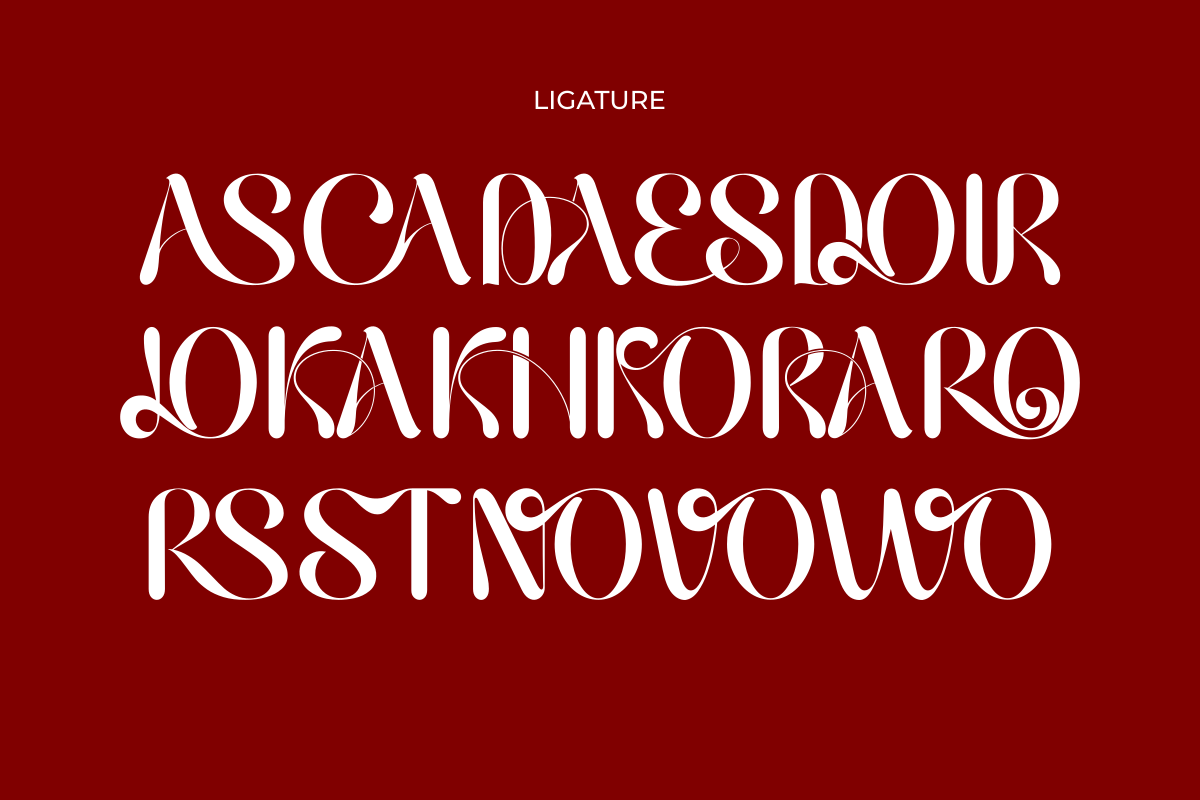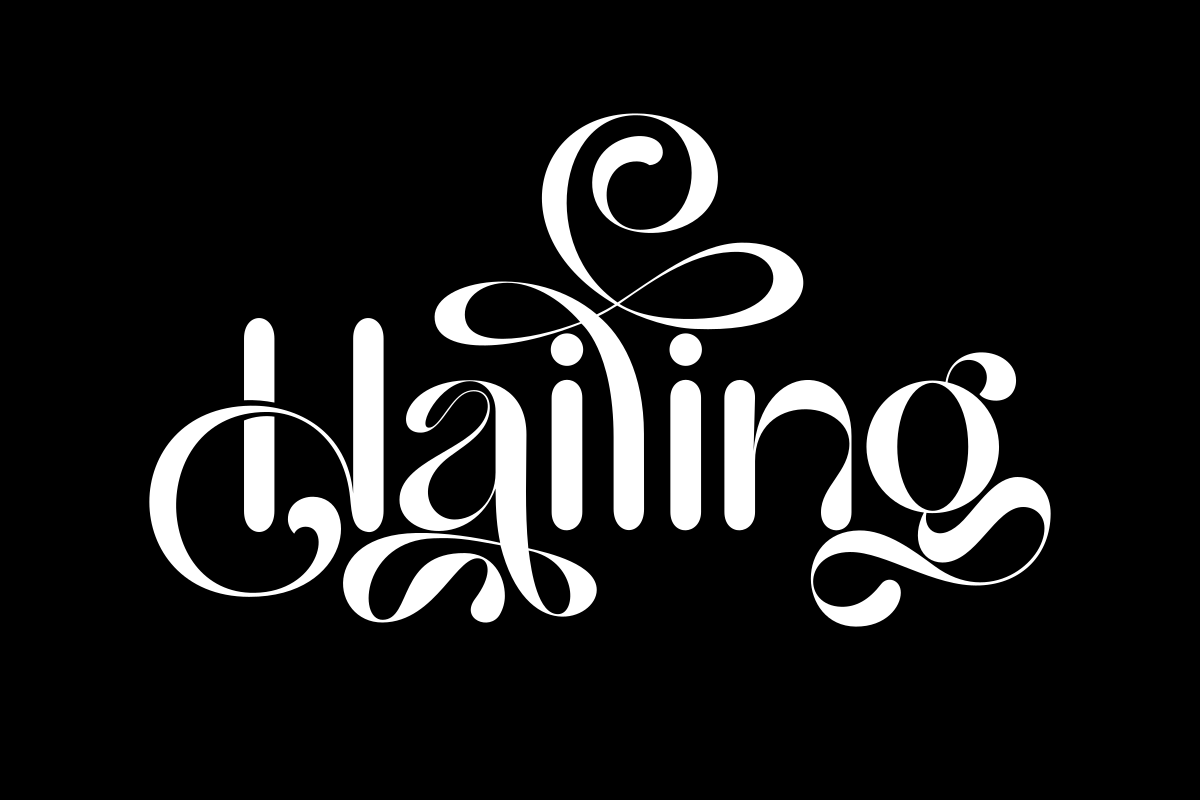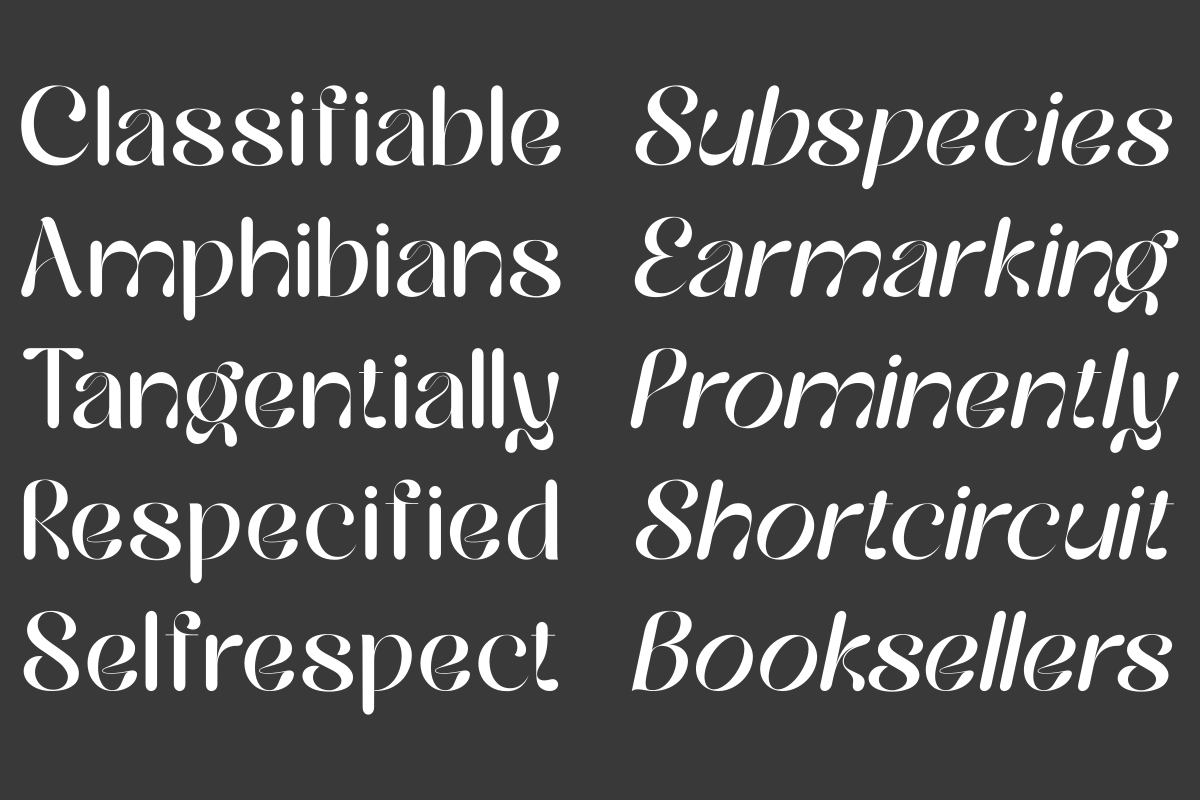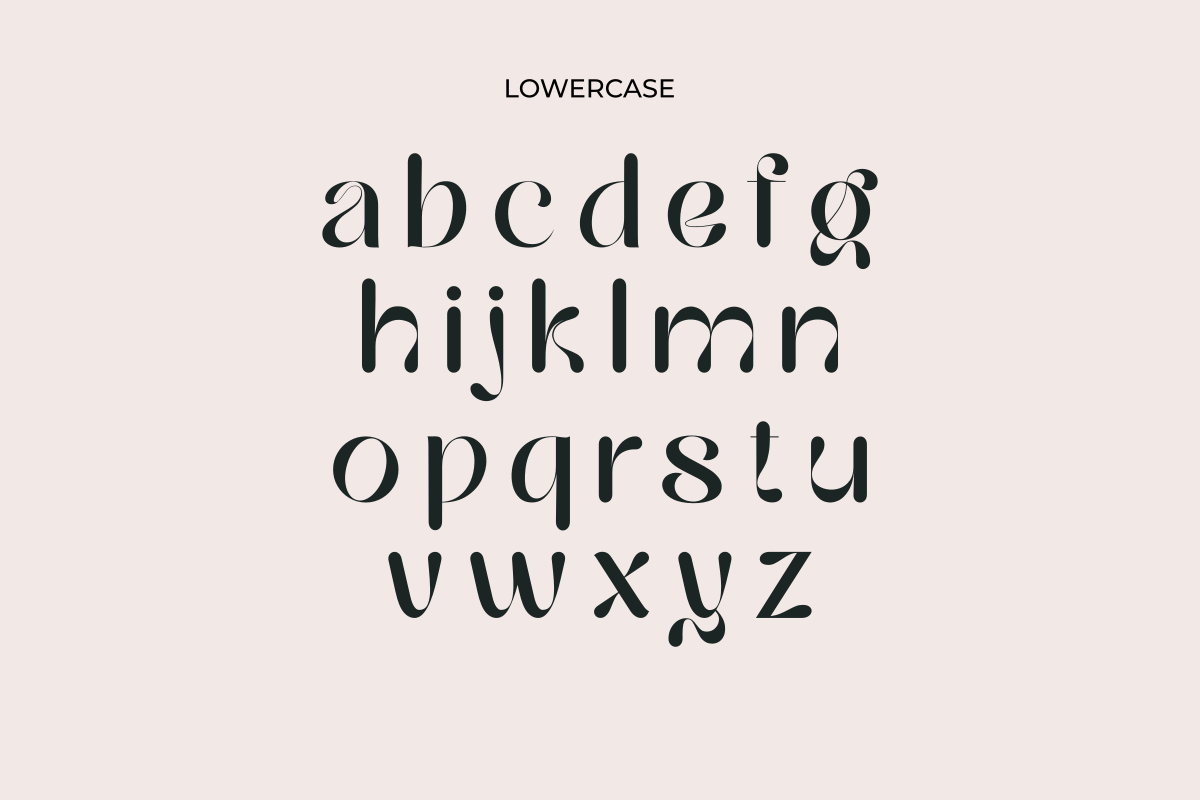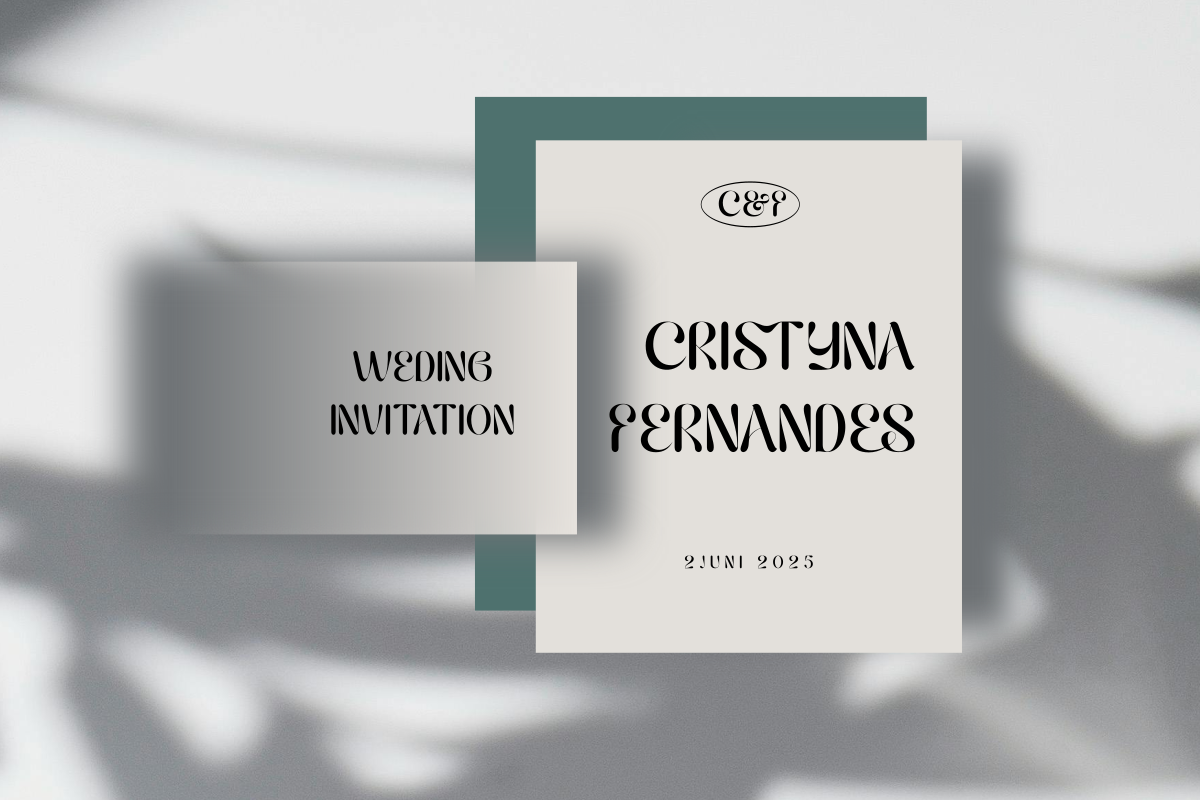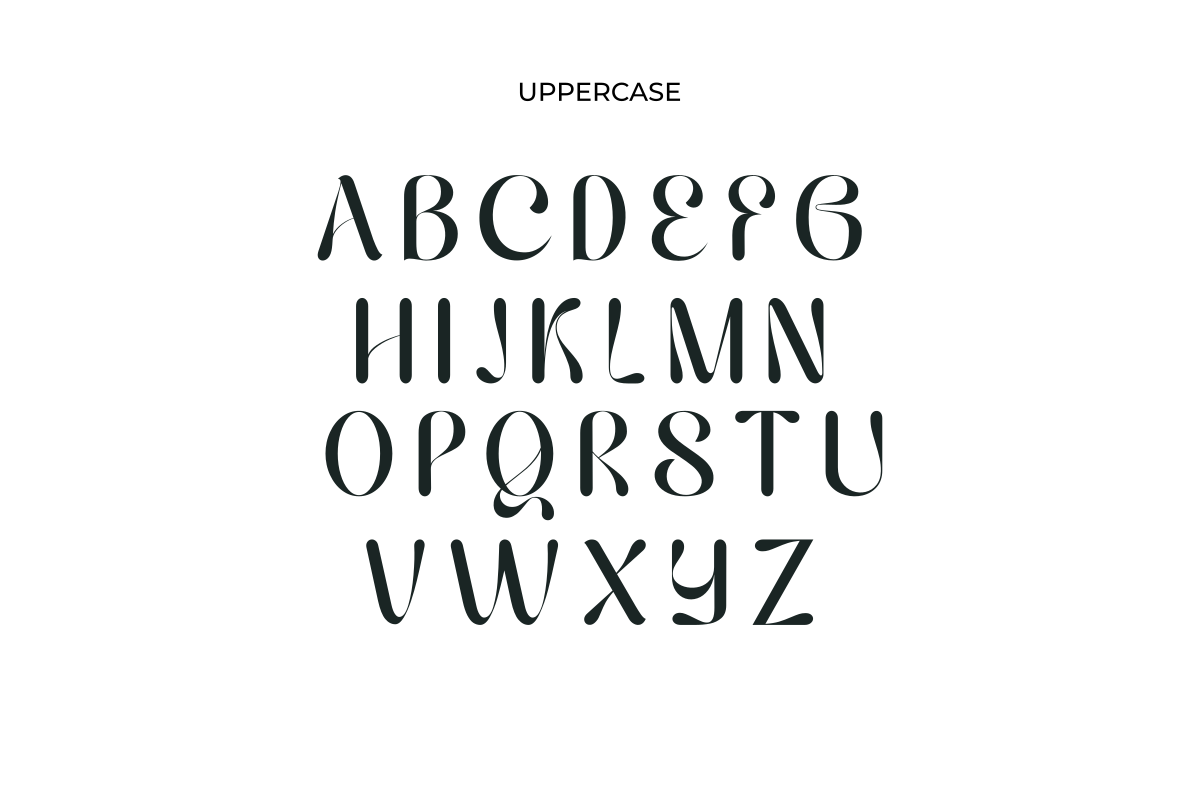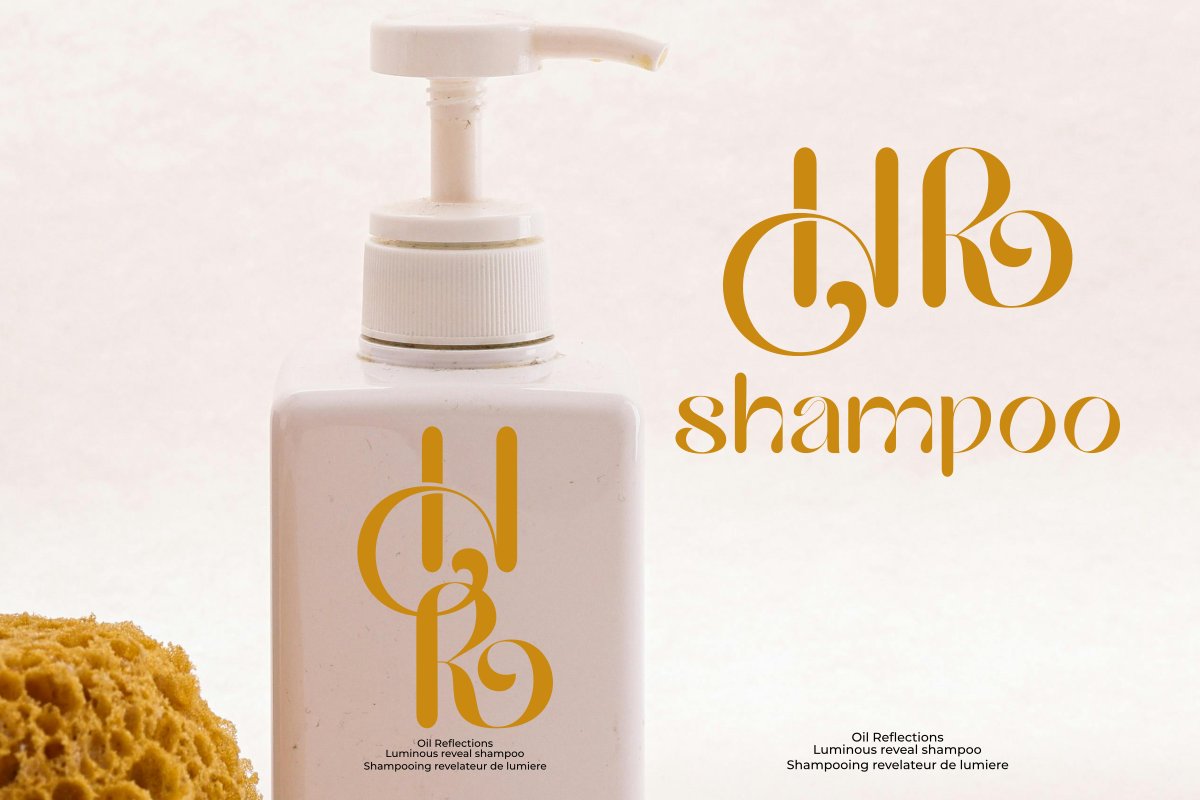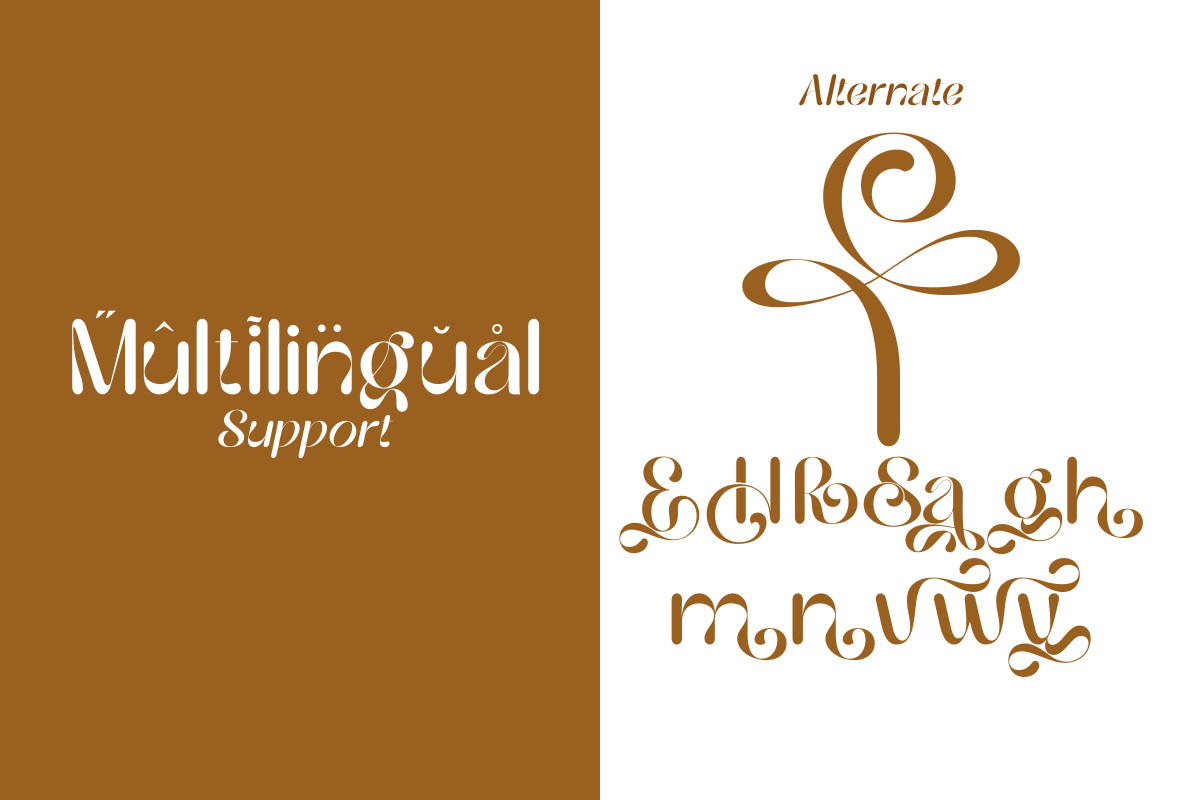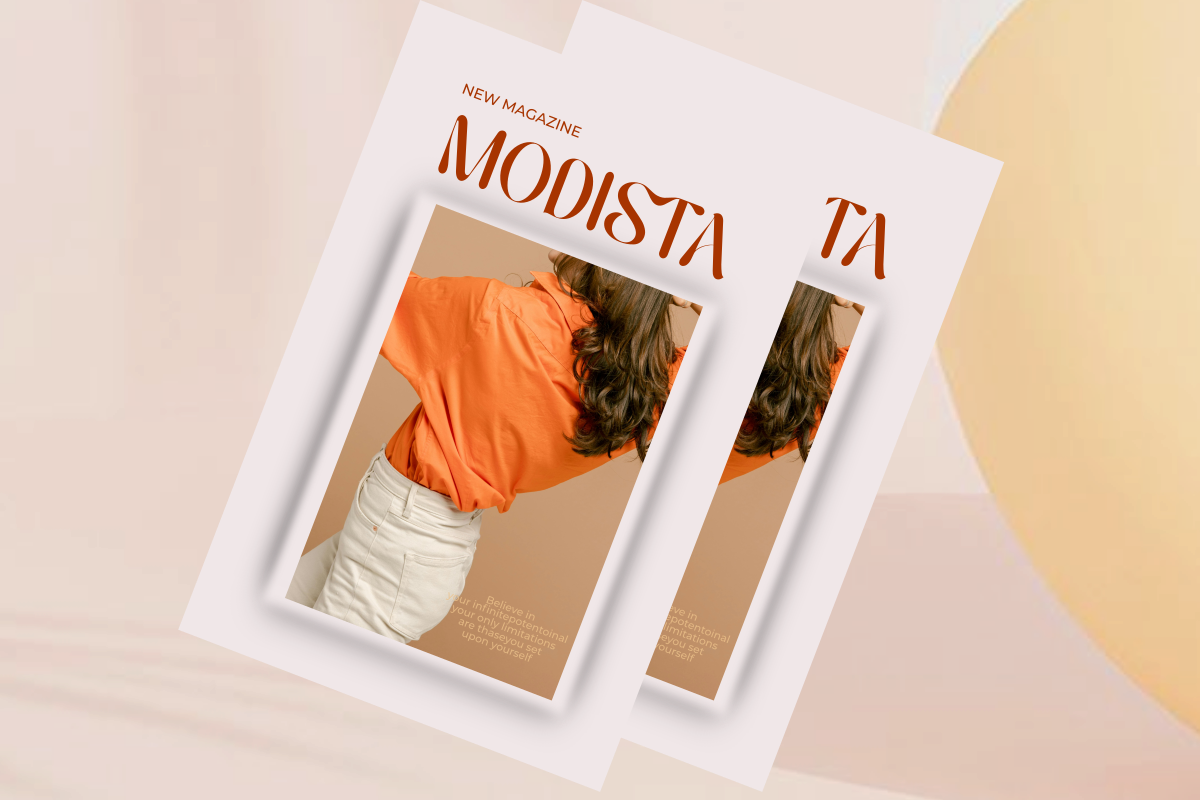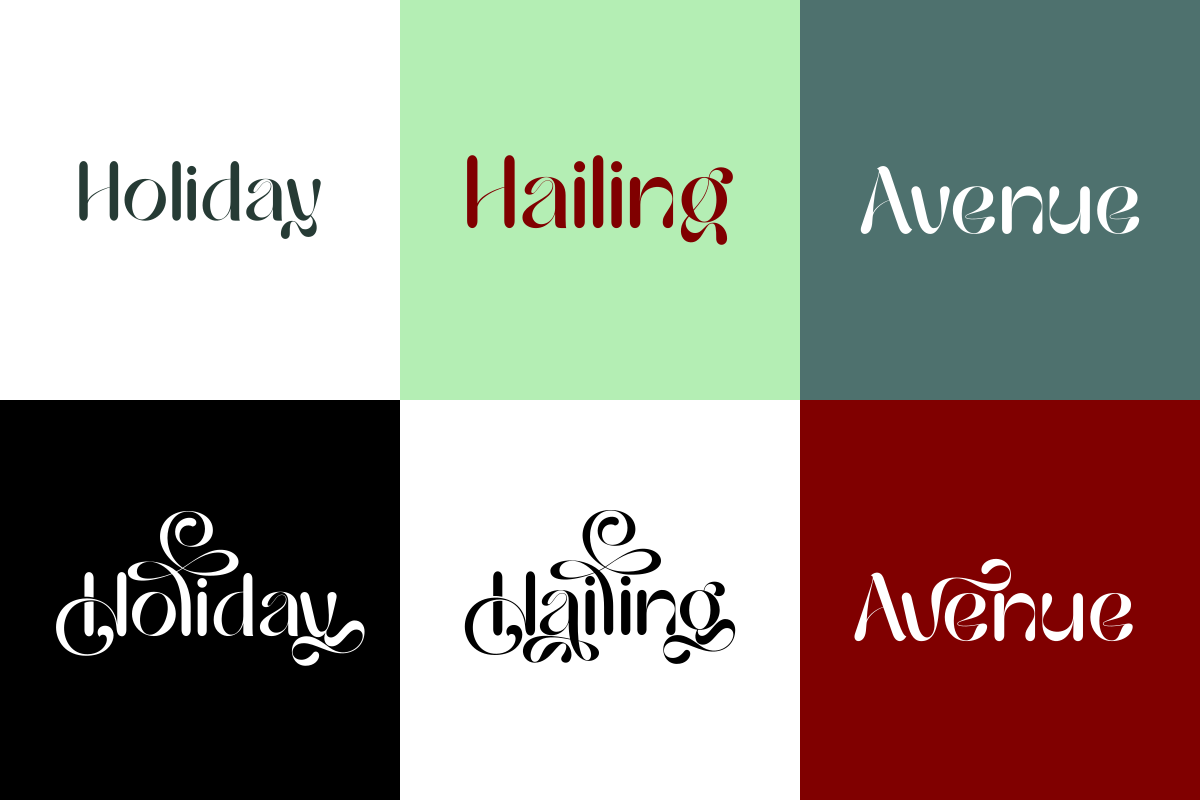
Hailing
Hailing is a rounded sans serif font with a modern and friendly feel. Available in Regular and Oblique styles, it’s perfect for branding, editorial, and digital use that calls for a soft yet confident character